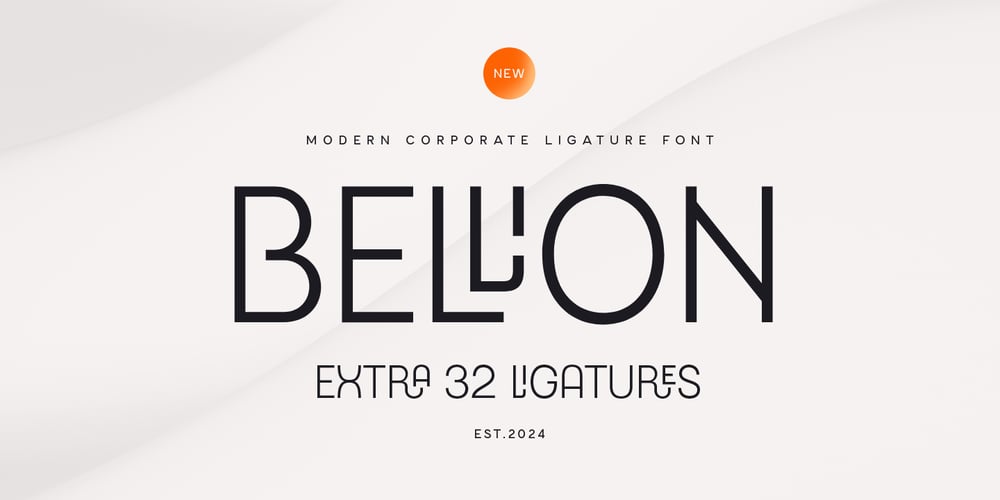
Bellion
Bellion font
Bellion Font Family was designed by Zamroni Hamzah and published by Sensatype Studio. Bellion contains 1 styles and family package options. An Unique Modern Ligature Font that we created special for Professional and Modern branding needs that will give you more Unique look, with alternates and ligatures in unique shape will be ready to add value of your brand. It’s so nice to leverage designer or product owner that need solutions to make their design look more Professional and modern. And specially for this font, We prepared any alternate and Ligature characters to help you create unlimited variations for your creative needs.Bellion Modern Corporate Ligature Font ready with: Any options to get creative variations (combination of Alternates and Ligatures) 4 format already Preview as a inspirations that you can do with this font Ready with All Uppercase characters Wish you enjoy our font. ๐Ÿ™‚